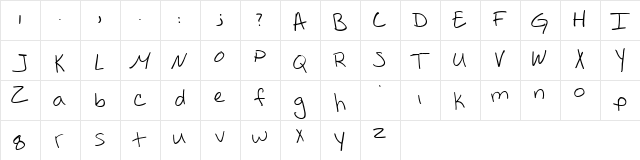
maydogg funky
Design Context for maydogg Typeface
maydogg has an approachable, lighthearted character — its loose, expressive forms are well-suited to children's content, casual branding, and fun-first design.
Great for children's books, toy packaging, family event branding, and casual consumer-facing design.
Font Pairing: Pairs well with a rounded or humanist sans for body copy, maintaining the friendly tone without relying on maydogg to carry extended reading.
Pro Tip: Avoid using maydogg for long passages of text — it works best for headlines, labels, and short calls to action.